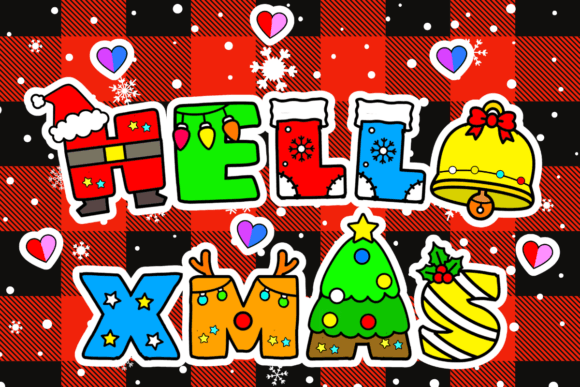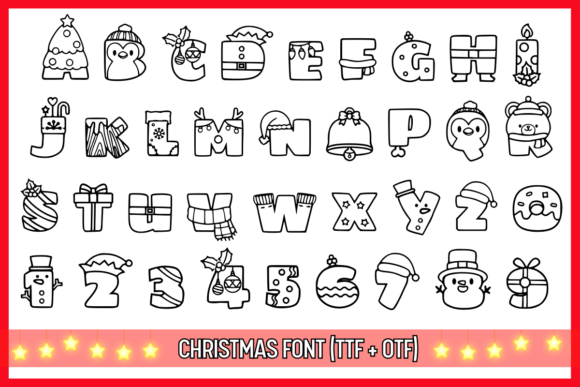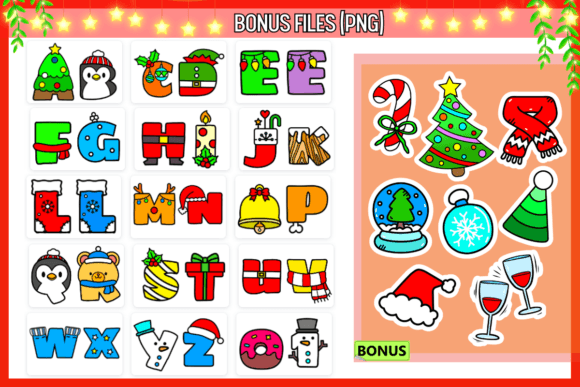
Hello Xmas Font
About the Hello Xmas Font
From logos to headlines, the Hello Xmas Font is the perfect choice for making a lasting impression. Hello Xmas is a sweet and cute decorative font. Add it to your creative ideas and you will love the results!
Hello Xmas is ideally suited for headlines, short celebratory messages, and festive branding projects. Its playful nature makes it perfect for Christmas cards, gift tags, and children’s book illustrations. However, its decorative style is less effective for body text or UI elements, where readability is paramount. Extended use could lead to visual fatigue.
Its inherent charm pairs well with clean sans-serif fonts like Open Sans for a balanced contrast, or a more elegant serif like Lora for a sophisticated feel. For a whimsical effect, consider pairing it with a playful script font like Pacifico.
The font’s overall personality is cheerful and festive, conveying a sense of warmth and lightheartedness. It’s best suited for brands aiming for a friendly and approachable image, particularly during the holiday season.